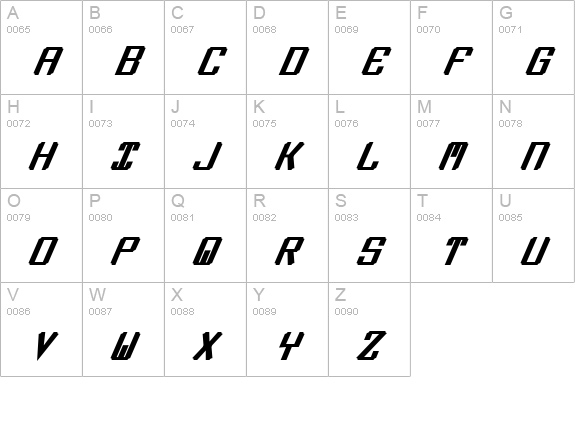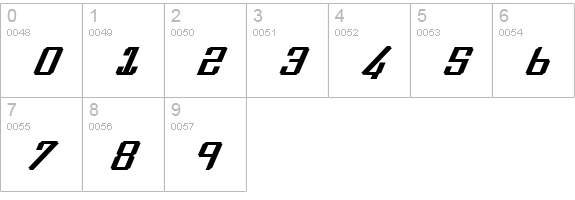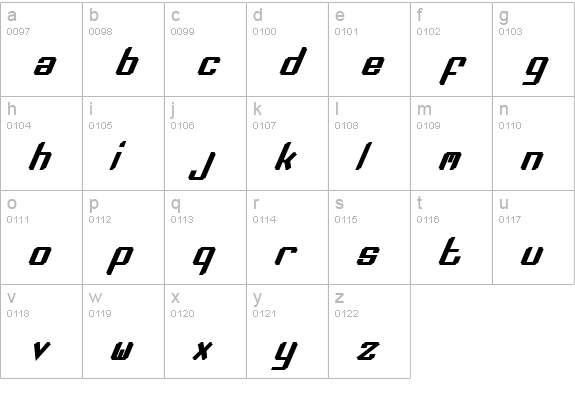
Zee Lance Bold Italic is a strong, high-contrast, italic variant in the Zee typeface family \xE2\x80\x94 well suited to headlines, attention-grabbing titles, and strong calls-to-action.
Introducing Zee Lance Bold Italic font, a captivating and dynamic typeface that exudes elegance and modernity. Its bold yet graceful curves make this font perfect for adding a touch of sophistication to any design project. The striking italicized style adds a sense of flair and creativity, making your text stand out with a unique charm. What's even better is that Zee Lance Bold Italic font is available for free download at FontsMarket.com, giving you easy access to this stylish typeface without any cost. Whether you're working on branding, advertising, or editorial design, Zee Lance Bold Italic font is sure to elevate your creations with its bold presence and distinctive personality. Don't miss out on the opportunity to enhance your projects with this versatile and eye-catching font. Download Zee Lance Bold Italic font for free today and let your creativity shine!